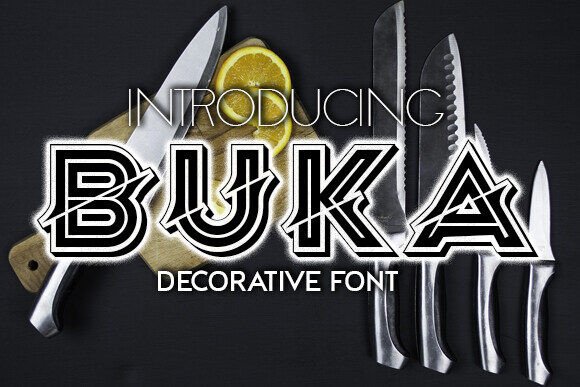
The Ultimate Guide to Buka Font: Elevate Your Designs with this Awesome Decorative Font
An Honest Review of Buka Font
- ✨ Unique and eye-catching design: Buka Font is a true showstopper. Its decorative style is perfect for making your designs stand out from the crowd.
- ✅ Highly versatile: Whether you’re working on posters, flyers, quotes, branding, logos, or t-shirts, Buka Font is the perfect choice.
- 💫 Easy to read: Despite its decorative nature, Buka Font is surprisingly easy to read, making it perfect for use in a variety of contexts.
Of course, no font is perfect, and Buka Font has a few small quirks to be aware of:
- 🤔 Limited use in formal contexts: Buka Font is a decorative font, so it’s not suitable for use in formal documents or contexts where a more traditional font is required.
- ⚠️ May not work well at small sizes: Like many decorative fonts, Buka Font may not be legible at very small sizes. Be sure to test it out at different sizes to ensure it works for your design.
The Story Behind Buka Font
Buka Font was designed by a team of creatives who wanted to create a unique and eye-catching font that would stand out in a crowded design landscape. Inspired by traditional decorative fonts, Buka Font brings a touch of elegance and sophistication to any design.
| Font Name | Buka Font |
| Author | vladimirnikolic |
| What type of font is Buka Font? | Buka Font is a decorative font that’s perfect for use in creative designs. |
| Is Buka Font easy to read? | Yes, despite its decorative nature, Buka Font is surprisingly easy to read. |